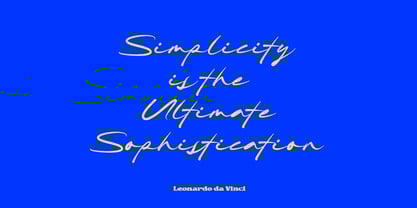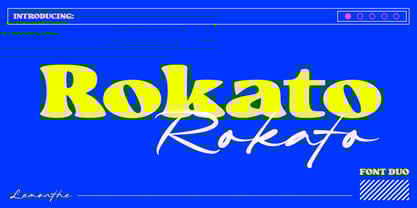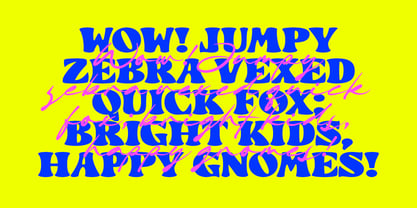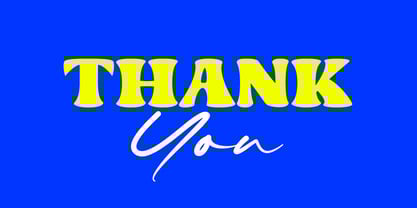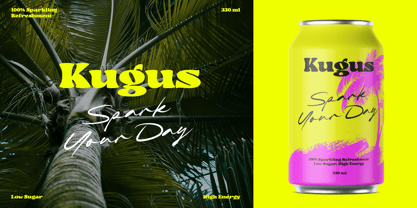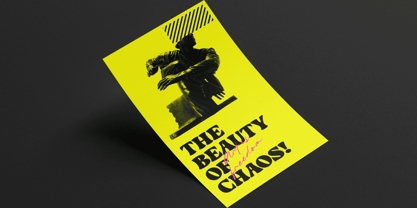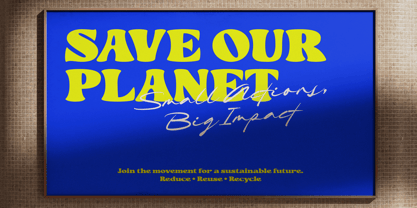
Rokato
by Lemonthe
The Rokato Font Family was designed by Dwi Ahidian and published by Lemonthe. Rokato contains 2 styles and family package options.
Rokato is a versatile font duo that seamlessly merges a retro-inspired bold display typeface with a relaxed script. This unique combination caters to a wide range of design applications, including logos, branding, posters, packaging, and digital content. The playful yet striking nature of Rokato offers designers the flexibility to create designs that are both airy and rich in personality. With its distinct character and adaptability, Rokato is perfect for projects that require a touch of nostalgia paired with modern flair, making it an excellent choice for any creative endeavor.